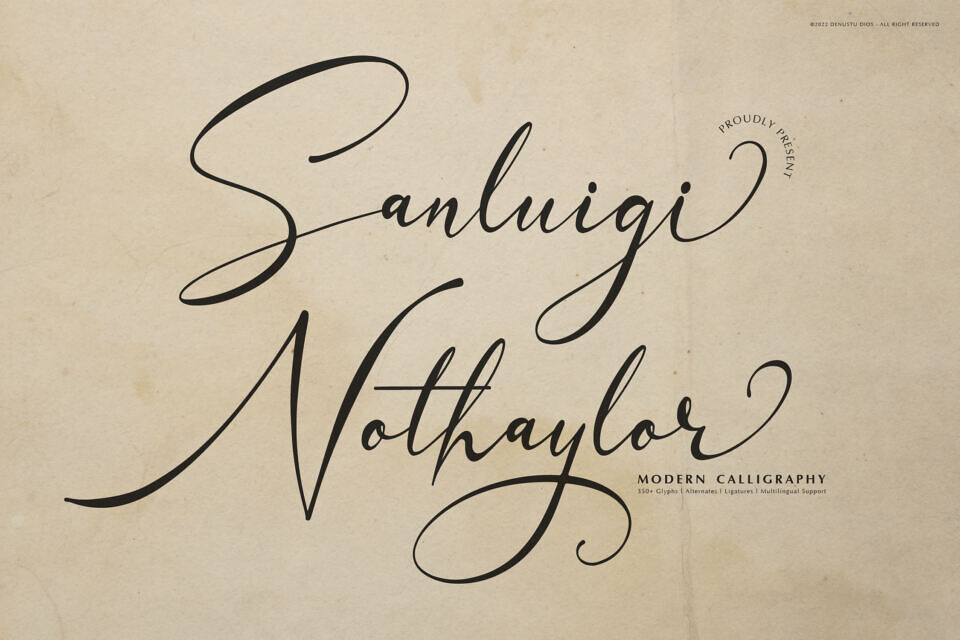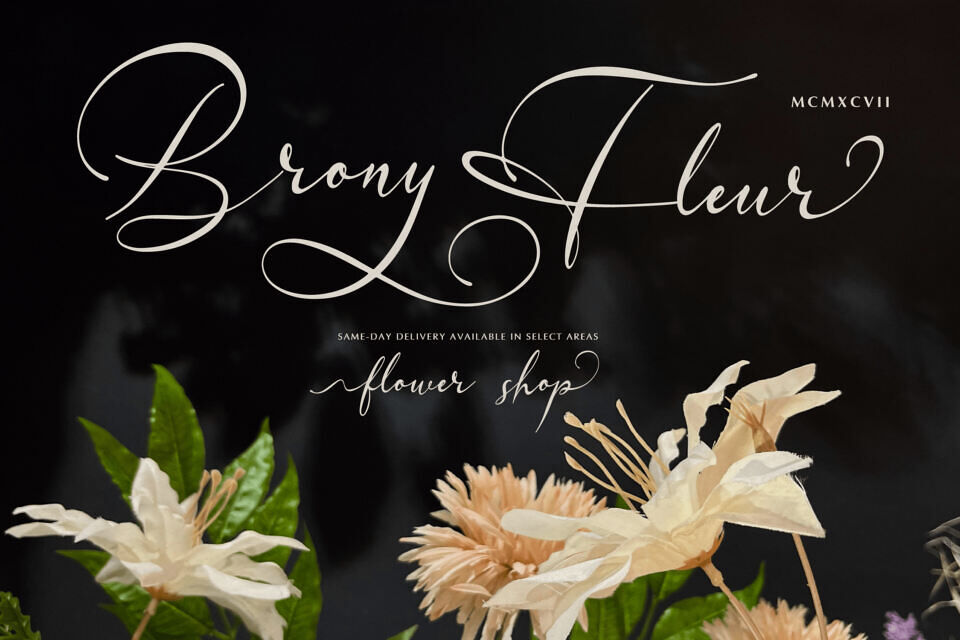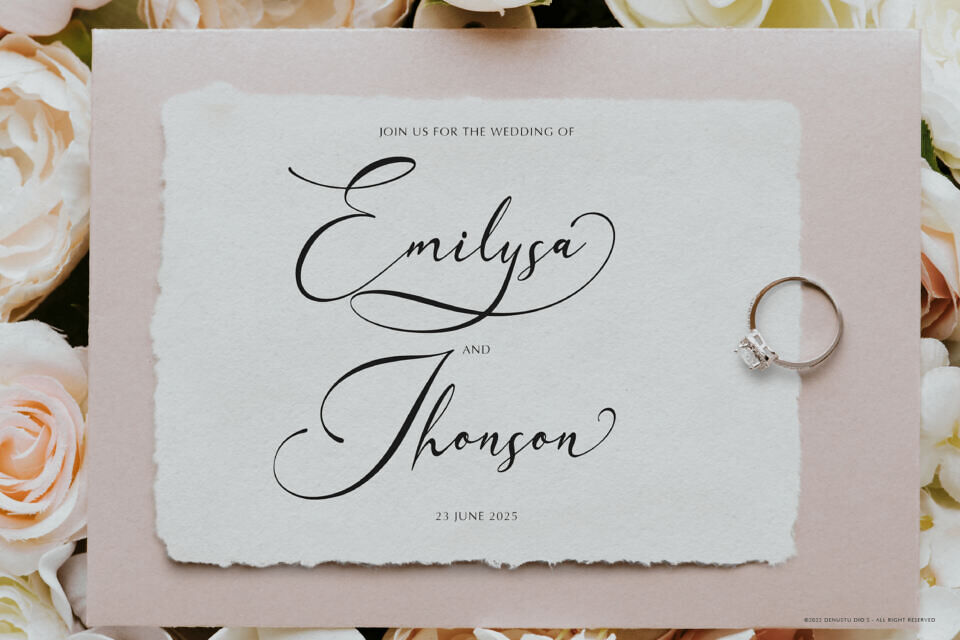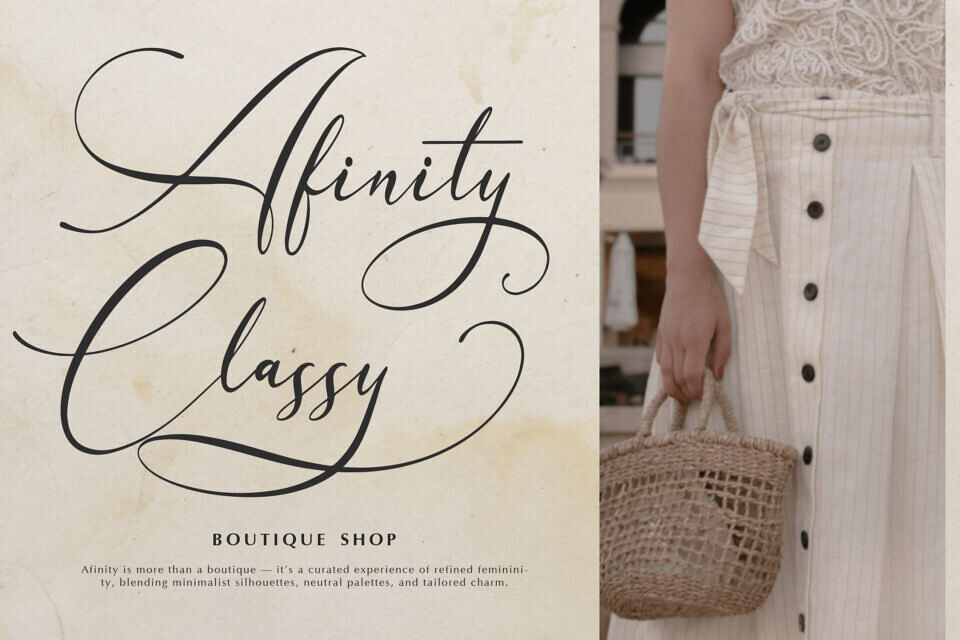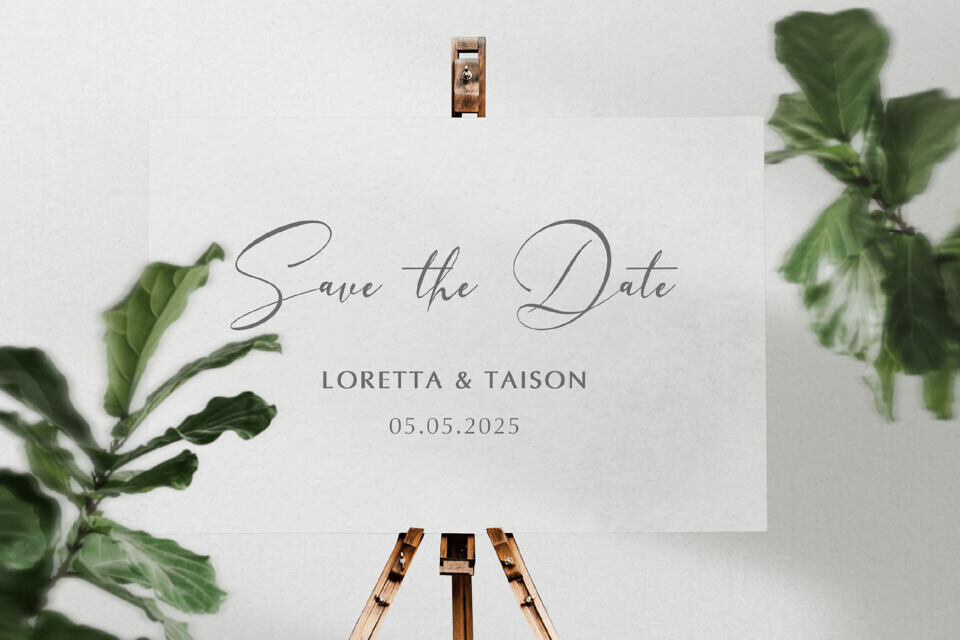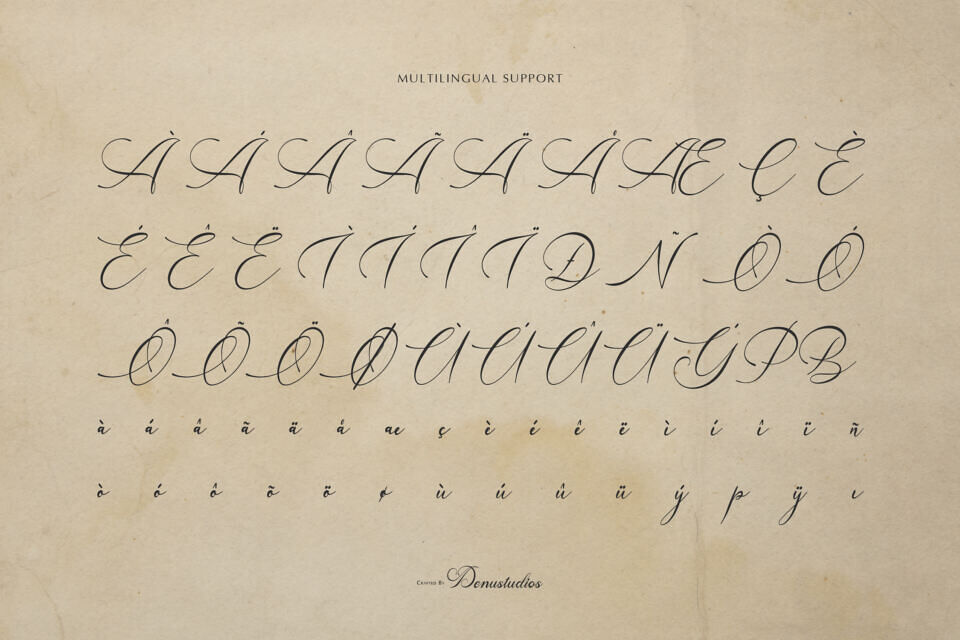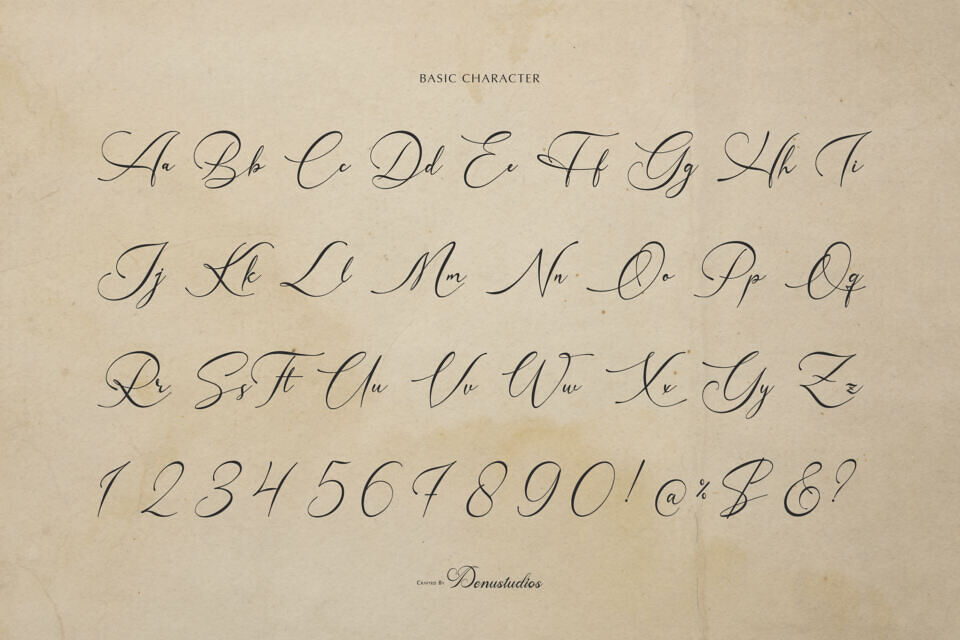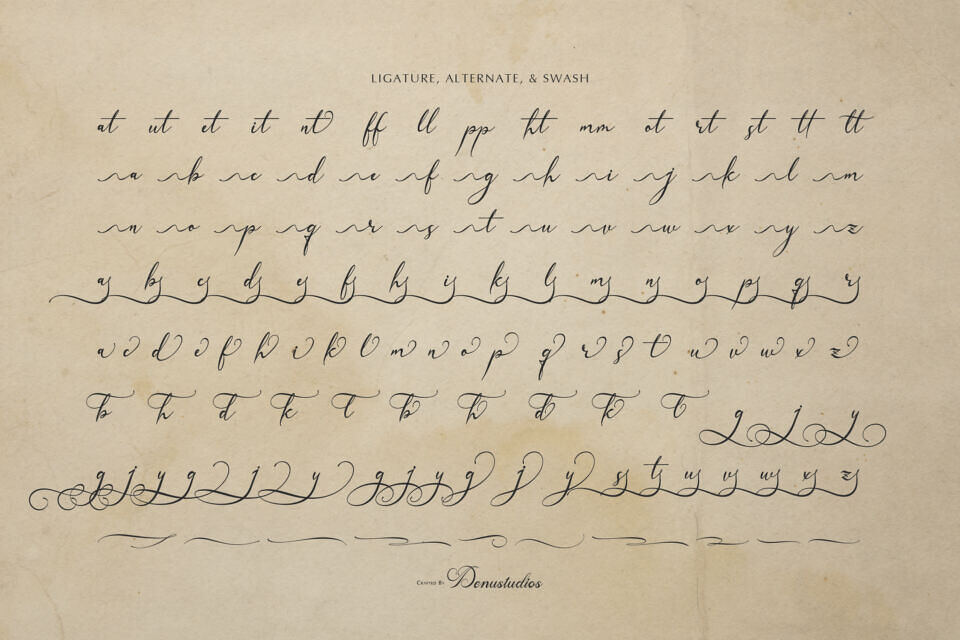
Sanluigi Nothaylor is a Modern Calligraphy from Denustudios, suitable for any projects such as: logos, branding projects, homeware designs, product packaging, mugs, quotes, posters, shopping bags, t-shirts, book covers, name card, invitation cards, greeting cards, label, photography, watermark, special events, and all your other lovely projects that need a Modern Calligraphy taste.